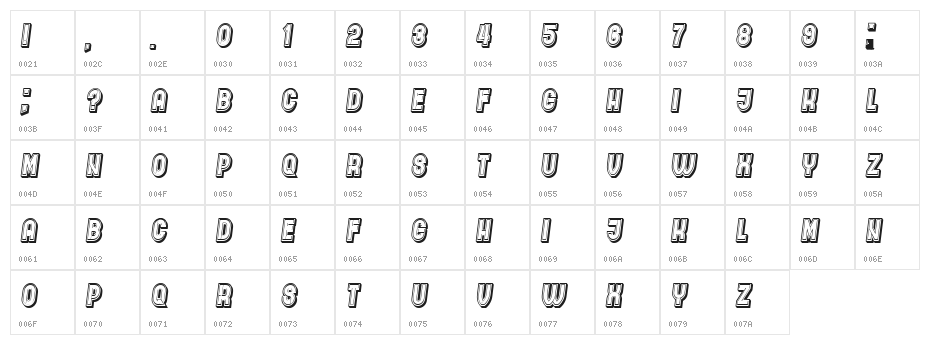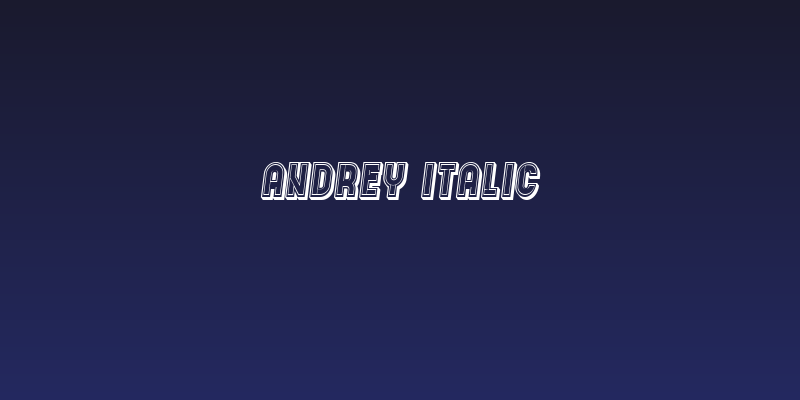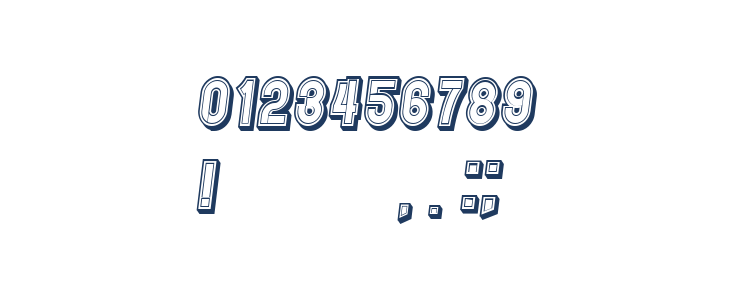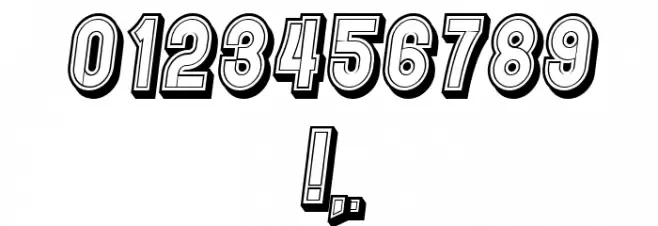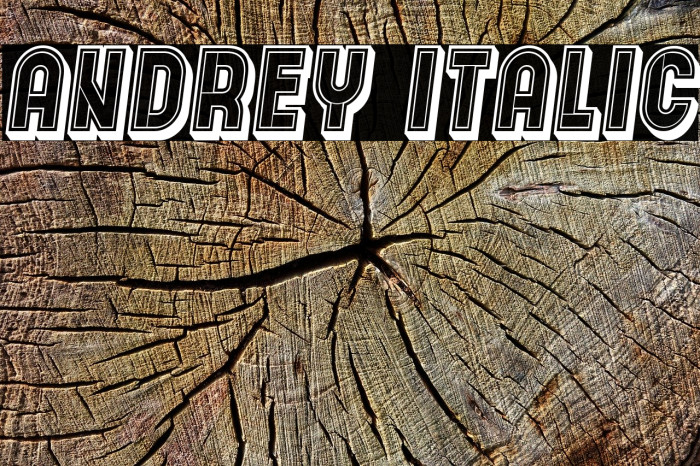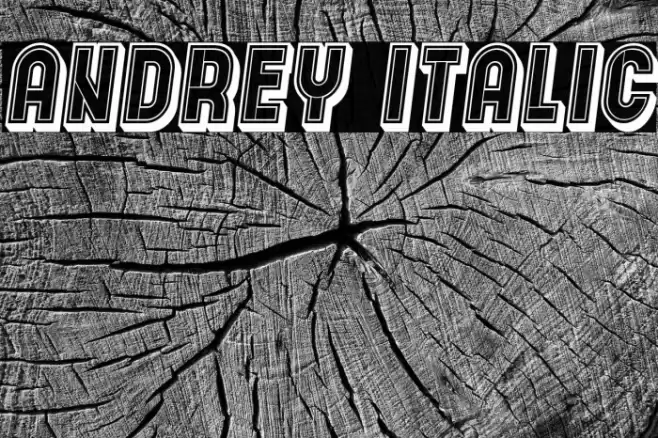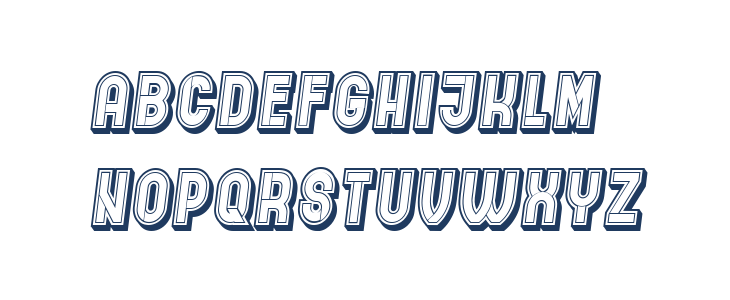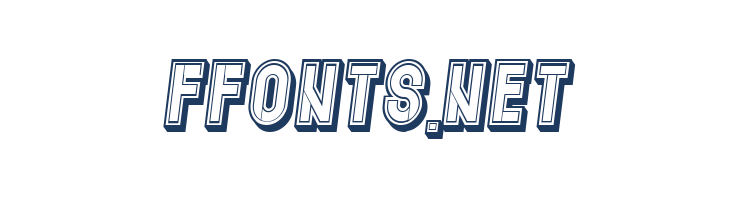
Andrey Italic Font
This font features a bold, three-dimensional style with a strong outline and shadow effect, giving it a striking and impactful appearance. The characters are uppercase and have a consistent width, with a slight slant that adds a dynamic feel. The design is reminiscent of vintage signage or retro posters, making it ideal for projects that require a bold statement. The shadowing adds depth, enhancing the visual interest and making the text stand out. The font's geometric structure and clean lines contribute to its modern yet nostalgic aesthetic.
| Proposed Projects | Ideal for posters, logos, headlines, and any design needing a bold, retro touch. |